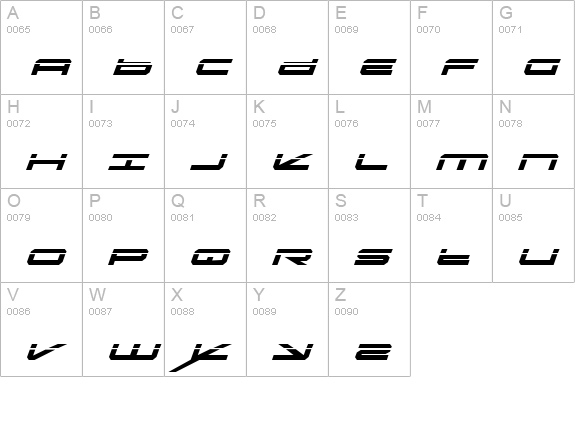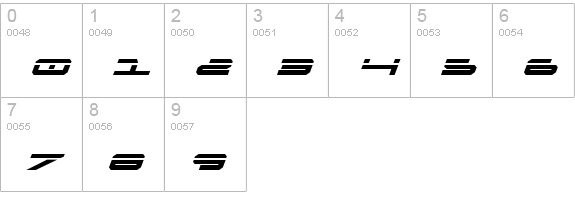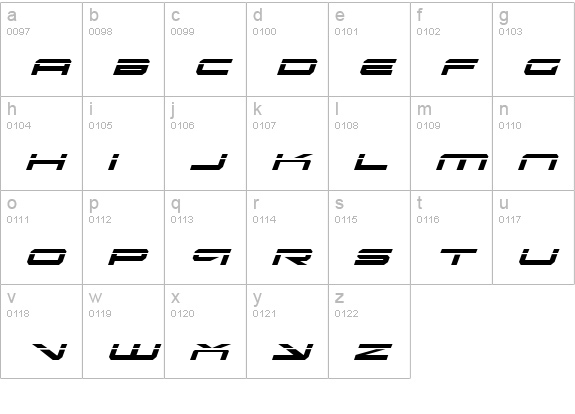
Oramac Laser Italic is a distinctive, italic variant in the Oramac typeface family \xE2\x80\x94 well suited to design and typography projects.
Oramac Laser Italic font is a sleek and modern typeface that exudes sophistication and elegance. Its sharp lines and italic style give any text a touch of sophistication and professionalism. Whether you're designing a logo, creating a flyer, or working on a branding project, Oramac Laser Italic font is sure to make your designs stand out. The best part? Oramac Laser Italic font is available for free download at FontsMarket.com. This means you can easily access this stylish font without having to spend a dime. Don't miss out on the opportunity to elevate your design projects with the stunning Oramac Laser Italic font - download it now and let your creativity soar!